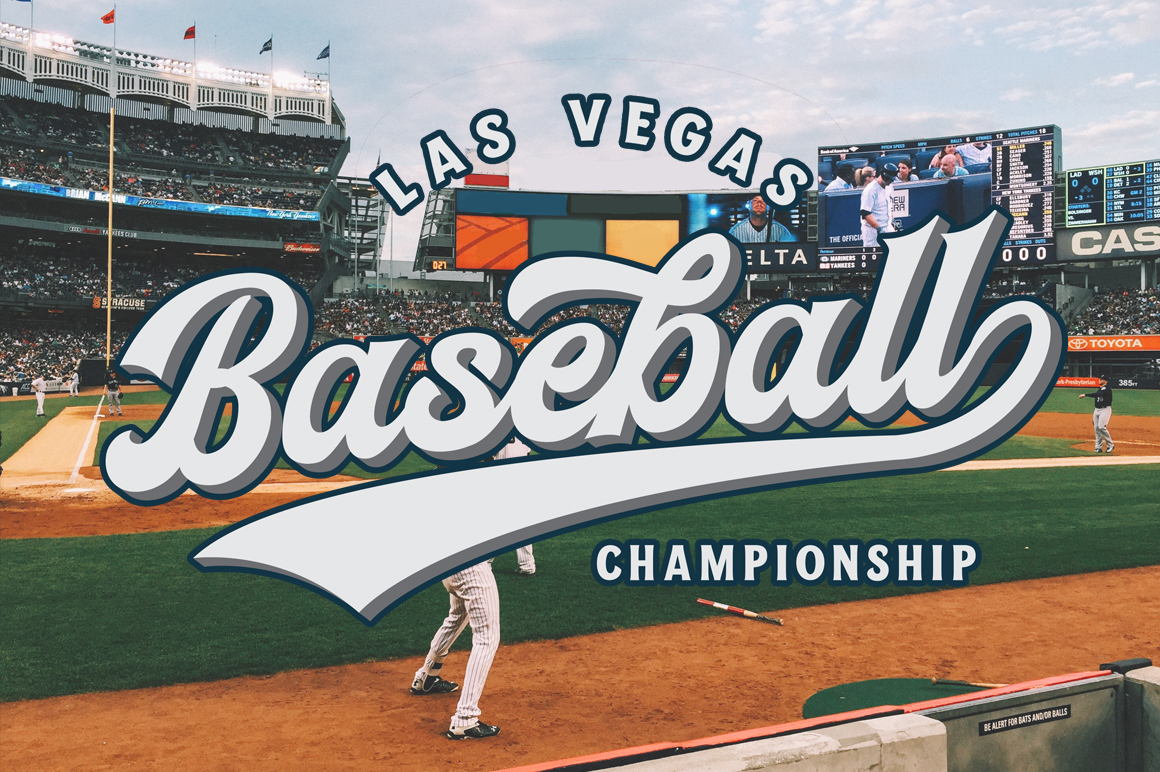
Introduction to Blandy Font
Inspired by vintage designs, Blandy is an extremely adaptable font.
Made to resemble traditional sports typography, this font is the perfect choice for a multitude of bold design ideas This strong signage script is both glamorous and strong, making it a necessity to any font collection.
Key Features of Blandy Font